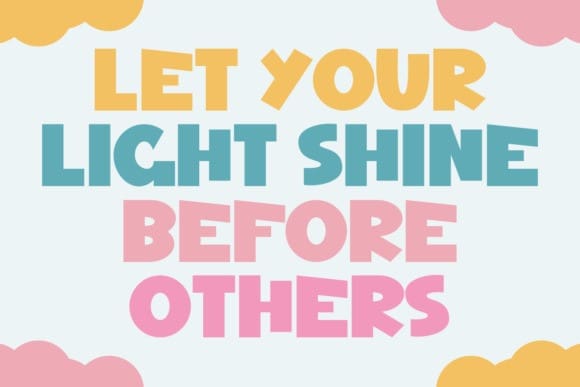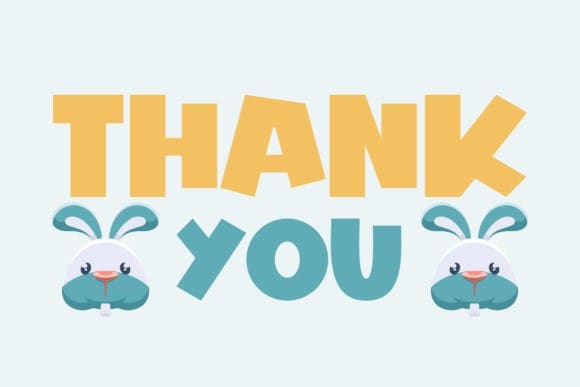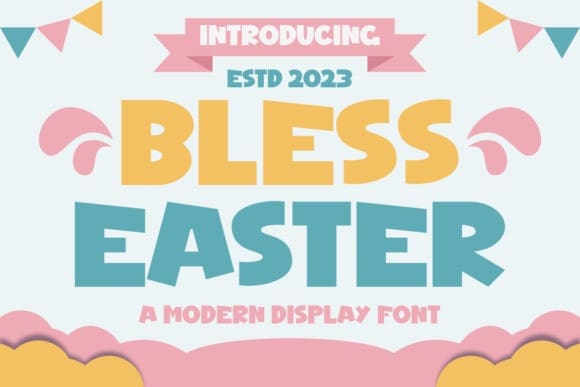
Bless Easter Font
Bless Easter Font is a delightful and quirky display font that radiates joy and festivity. With its playful and unique design, it captures the spirit of Easter and adds a touch of whimsy to any project. Perfect for greeting cards, party invitations, and holiday-themed designs, Bless Easter brings a cheerful and celebratory vibe to your creations.